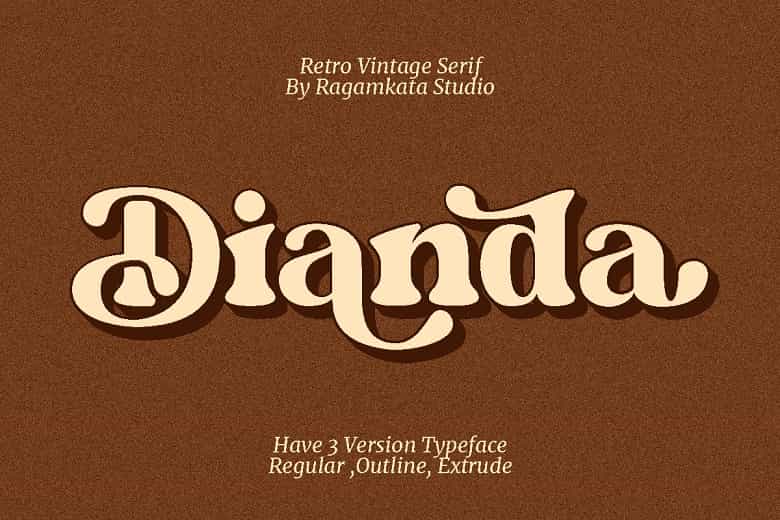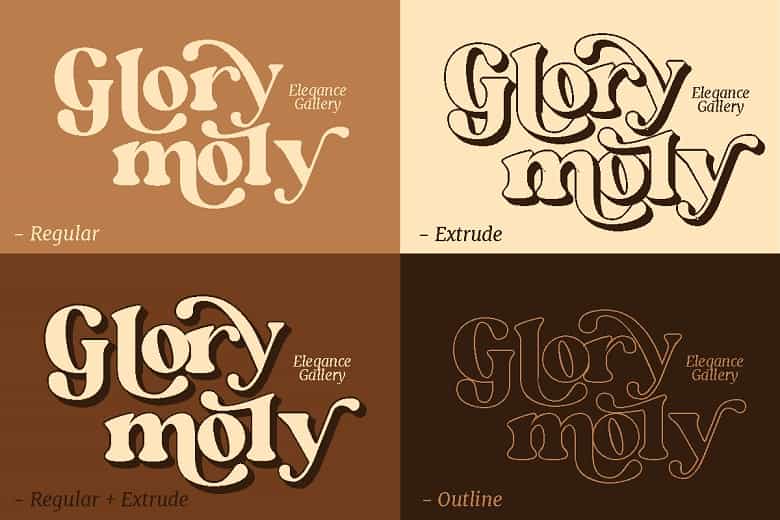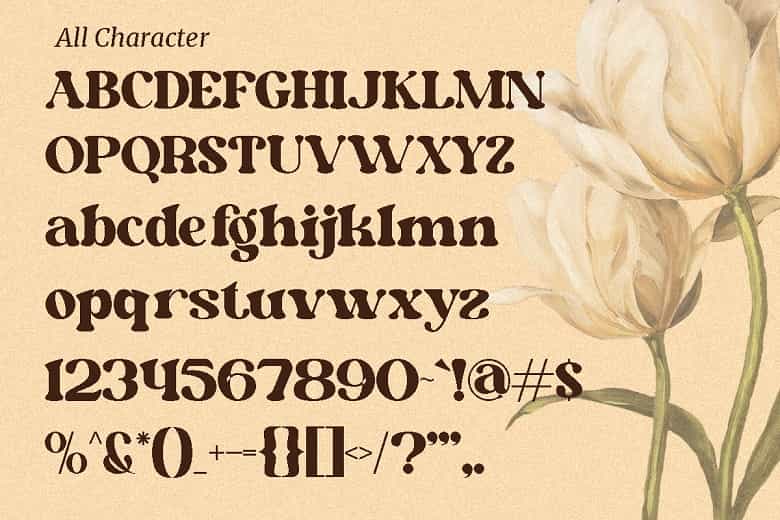
Dianda is a bold modern vintage serif font with retro style. Good for logos, magazines and social media. It is available with the standard upper and lower case, numbers, punctuation, and multiple languages, alternates, and ligatures.